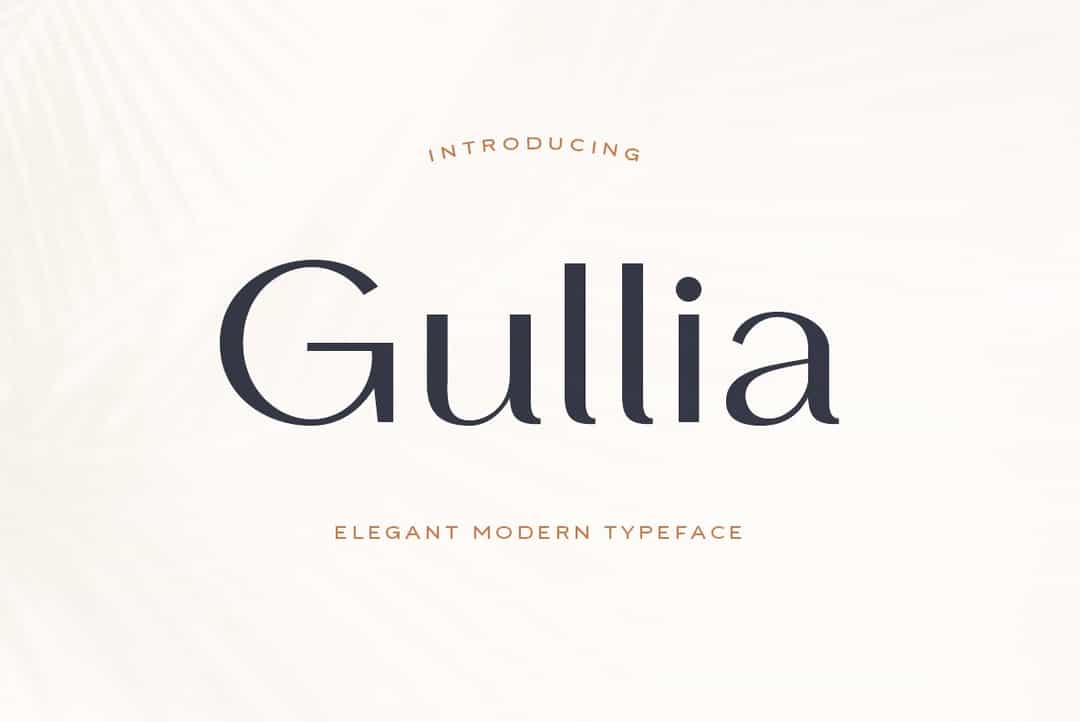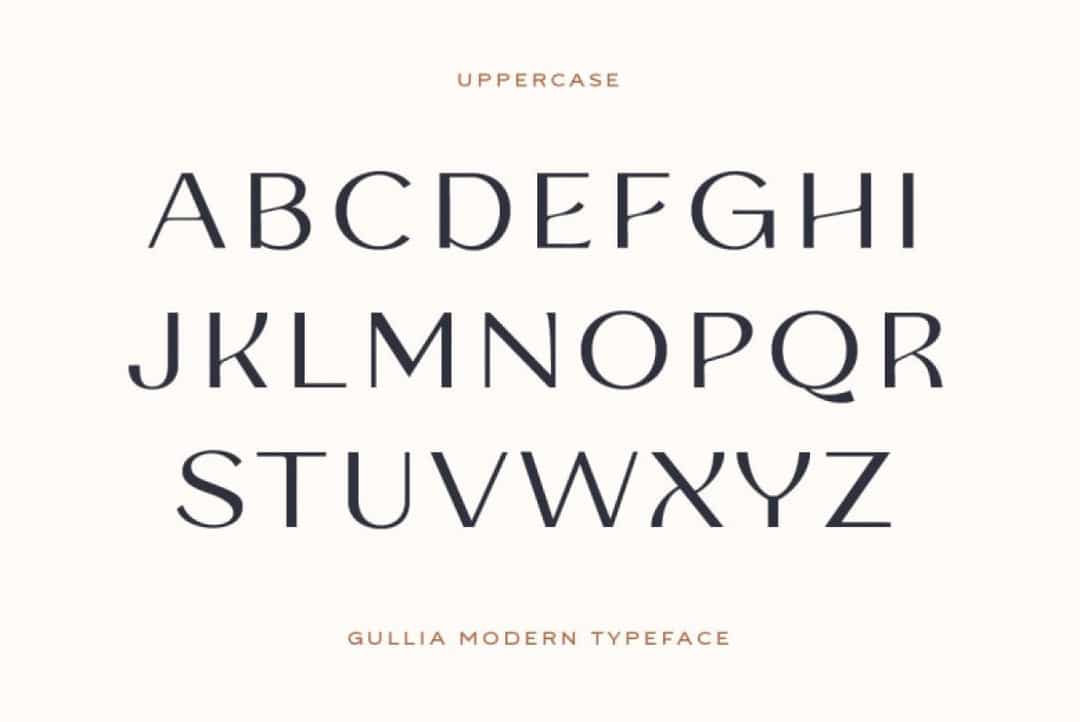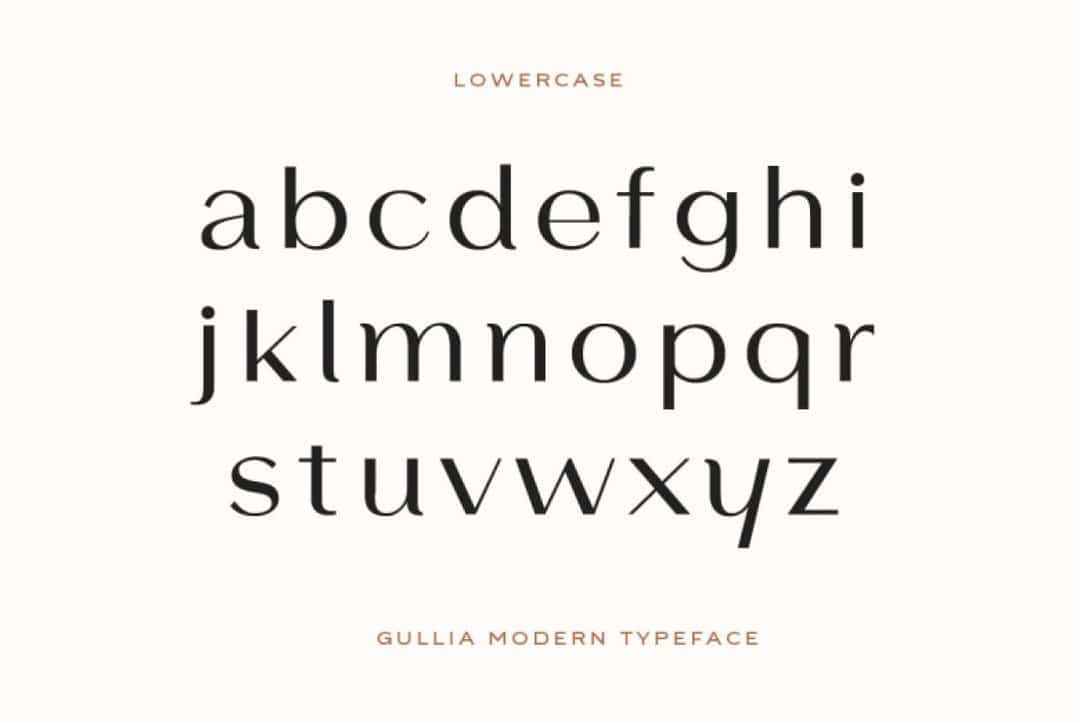
Gullia is an elegant contemporary sans-serif font ideal for fashion design projects. The elegant, thin font can be used to create logos and branding while its low legibility height makes it suitable for use on advertisements, websites and other forms of communication.